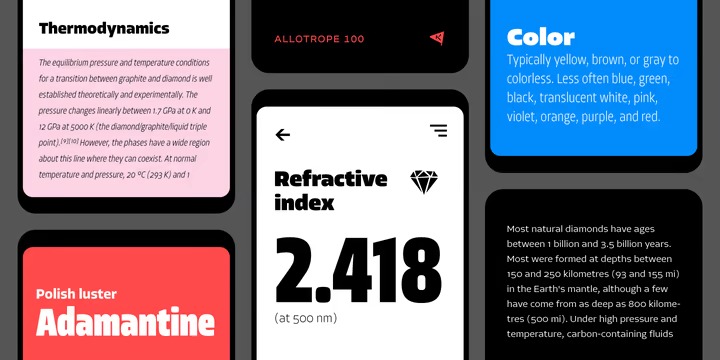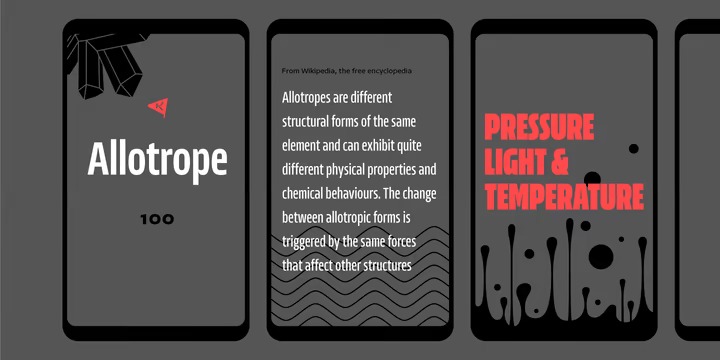
Allotrope Font Family
Allotrope Sans Serif Font
This is a sans serif font, that features a simple and minimalist feel. Allotropes are different structural forms of the same element and can exhibit quite different physical properties and chemical behaviors. The change between allotropic forms is triggered by the same forces that affect other structures – pressure, light, and temperature. From Wikipedia the Free Encyclopedia
With ten weights in five widths plus Italics, this family comes to a total of 100 fonts. The large number of styles was made with the intent to cover most cases UI designers have to tackle, with one type family. Stylistic alternates were made to follow the same logic, so there is an optional single-story g, serifed capital I, and dotted zero – all available through the OpenType feature. The character set supports Western and Central European languages, as well as Turkish.